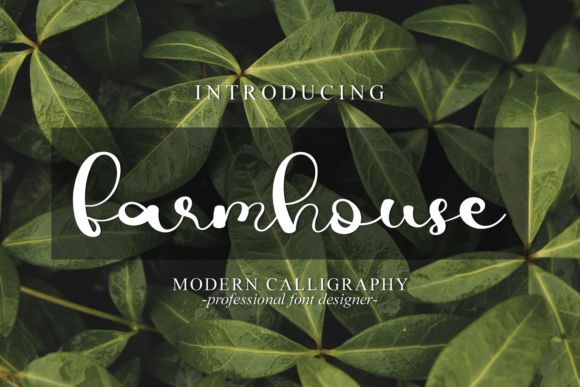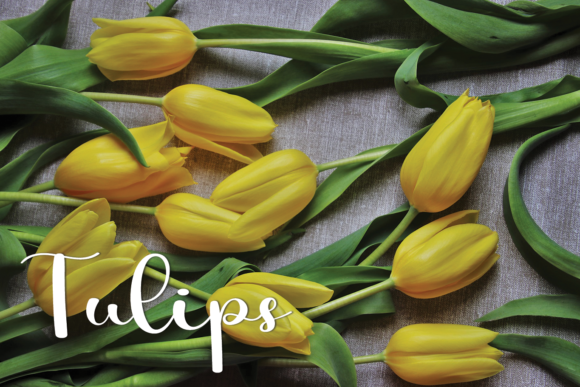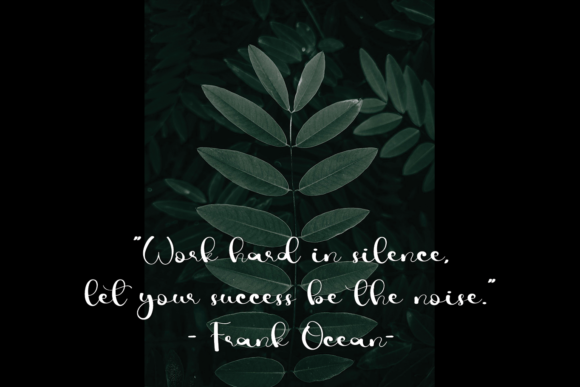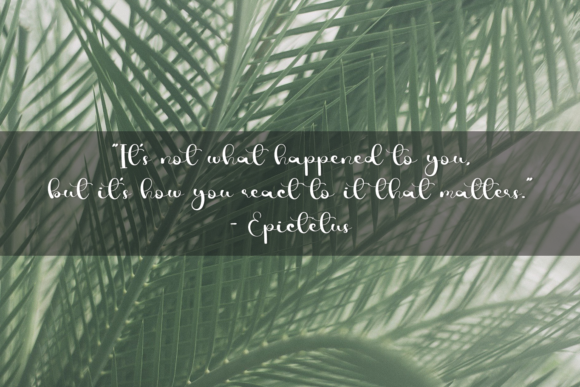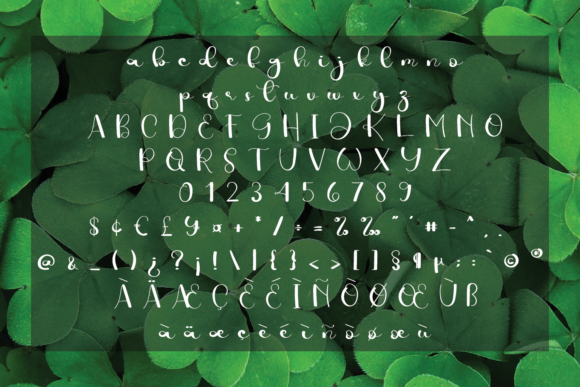
The Perfect Accent for Your Creative Masterpiece
Do you remember the moment when you stumbled upon the perfect font to bring your design project to life? For many of us, it’s a moment of pure joy and excitement. For designers, finding the right font can make all the difference between a good design and a great one.
Enter Farmhouse Font, a sweet, round lettered and delicate script font designed to add a touch of elegance and whimsy to your projects. Not too thin and not too thick, Farmhouse Font is balanced and varied, making it the perfect choice for designers who want to add a personal touch to their work. With its gentle curves and soft lines, Farmhouse Font is a valuable addition to any designer’s toolkit, capable of elevating even the simplest designs into something truly special.
Farmhouse Font Key Features
- Font Family: A rustic, handwritten font with a unique, personal touch.
- Unique Characteristics: Distinctive letterforms, subtle texture, and a vintage feel that adds a personal touch to designs.
Farmhouse Font Review
I recently had the chance to work with the Farmhouse Font, and I have to say, it’s a real mixed bag. Here are my thoughts.
- Unique, vintage vibe: The Farmhouse Font has a distinct, nostalgic feel that’s perfect for rustic or country-themed designs.
- Customizable: The font comes with a range of variations and ligatures, allowing you to fine-tune the look to suit your project.
- Good legibility: Despite its vintage aesthetic, the font is surprisingly easy to read, even at smaller sizes.
- Limited font sizes: The Farmhouse Font can look a bit awkward at very large or very small sizes, which may limit its use in certain applications.
- Not ideal for body text: While the font is great for headings and titles, it’s not the best choice for body text, as it can be a bit too ornate and distracting.
Overall, the Farmhouse Font is a solid choice for designers looking for a unique, vintage vibe. While it has some limitations, it’s a great addition to any design toolkit.
Tips for Getting the Most Out of Farmhouse Font
Use Farmhouse Font for titles and headings to create a warm and inviting atmosphere.
Pair Farmhouse Font with rustic or vintage-themed graphics and images to enhance the farmhouse feel.
Use Farmhouse Font in conjunction with other fonts to create a unique and eye-catching design.
Farmhouse Font is ideal for:
Home decor and furniture design
Rust
Alternatives to Farmhouse Font
Playfair Display is an elegant and luxurious serif font that is perfect for creating a high-end, sophisticated look. It is ideal for use in headings, titles, and other design elements where a touch of luxury is desired.
Compared to Farmhouse Font, Playfair Display has a more refined and polished appearance, making it suitable for use in a wider range of design contexts. While Farmhouse Font has a more rustic, vintage feel, Playfair Display is more formal and elegant.
Great Vibes is a beautiful, elegant script font that is perfect for creating a romantic, whimsical look. It is ideal for use in headings, titles, and other design elements where a touch of elegance and sophistication is desired.
Compared to Farmhouse Font, Great Vibes has a more flowing, cursive appearance, making it suitable for use in design contexts where a more traditional or vintage feel is not desired. While Farmhouse Font has a more rustic, country feel, Great Vibes is more refined and elegant.